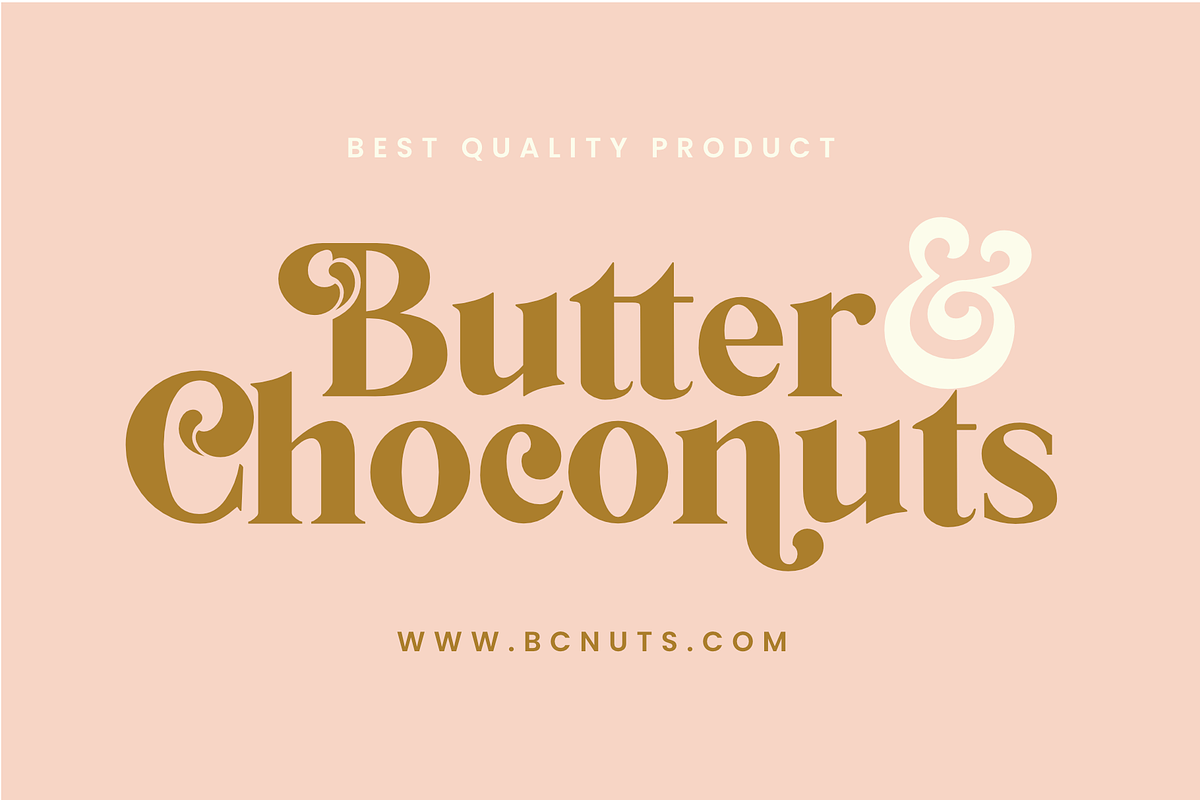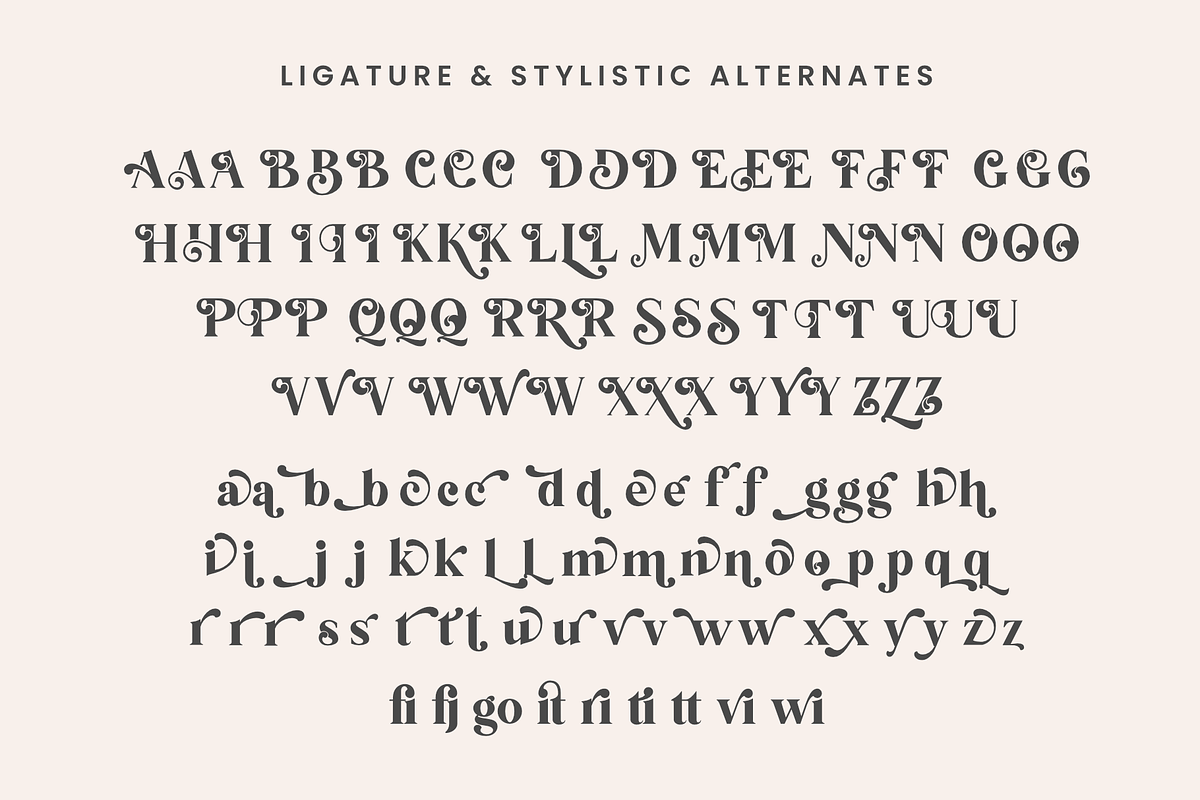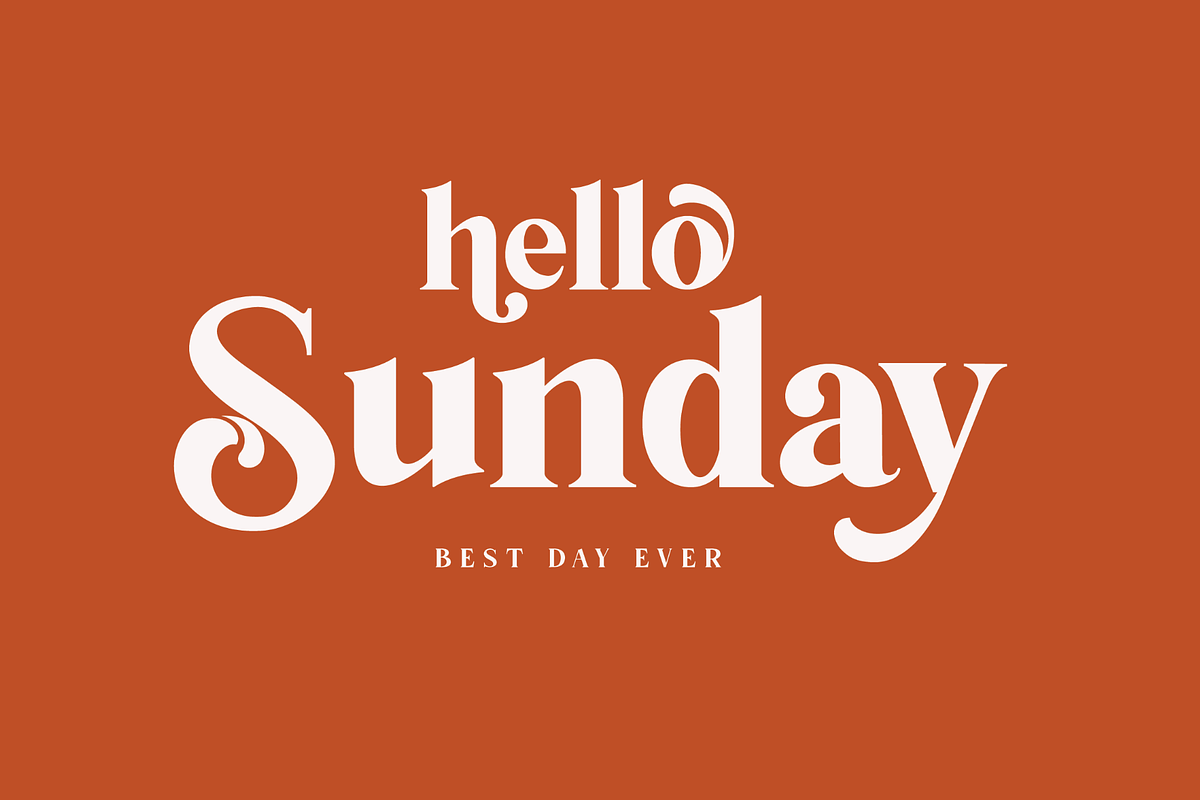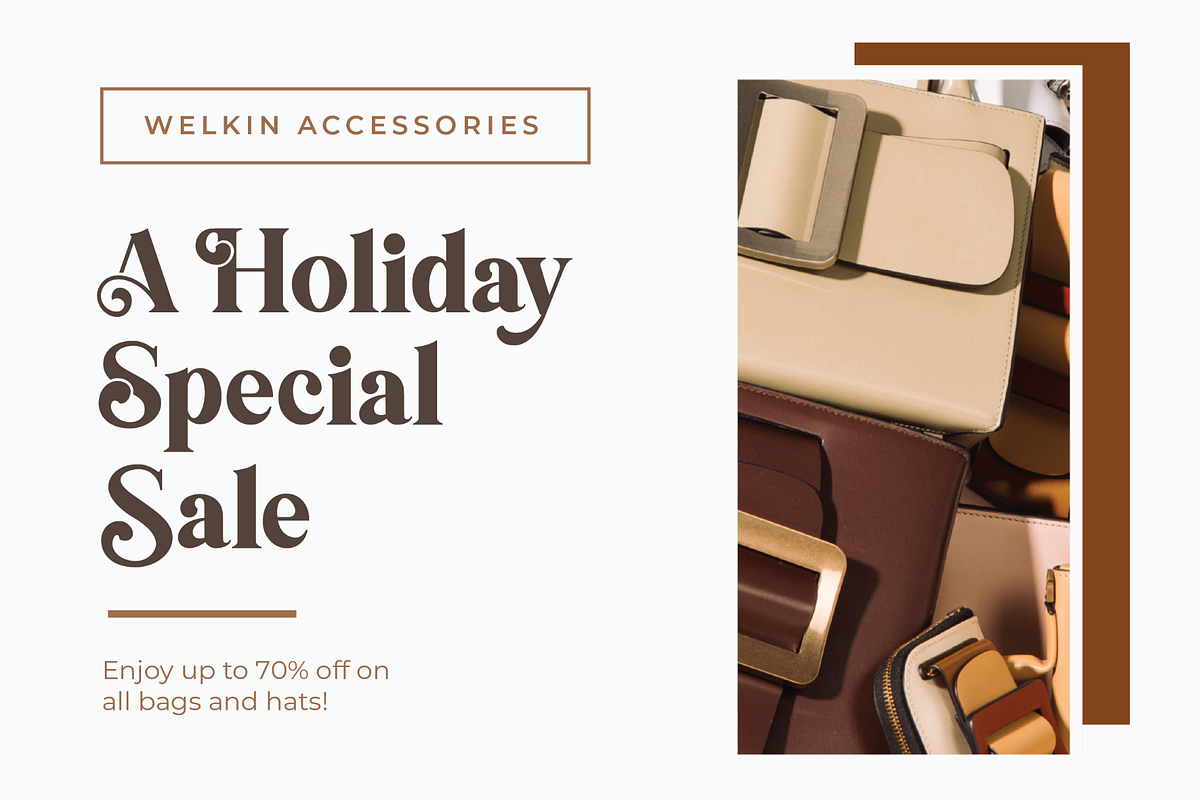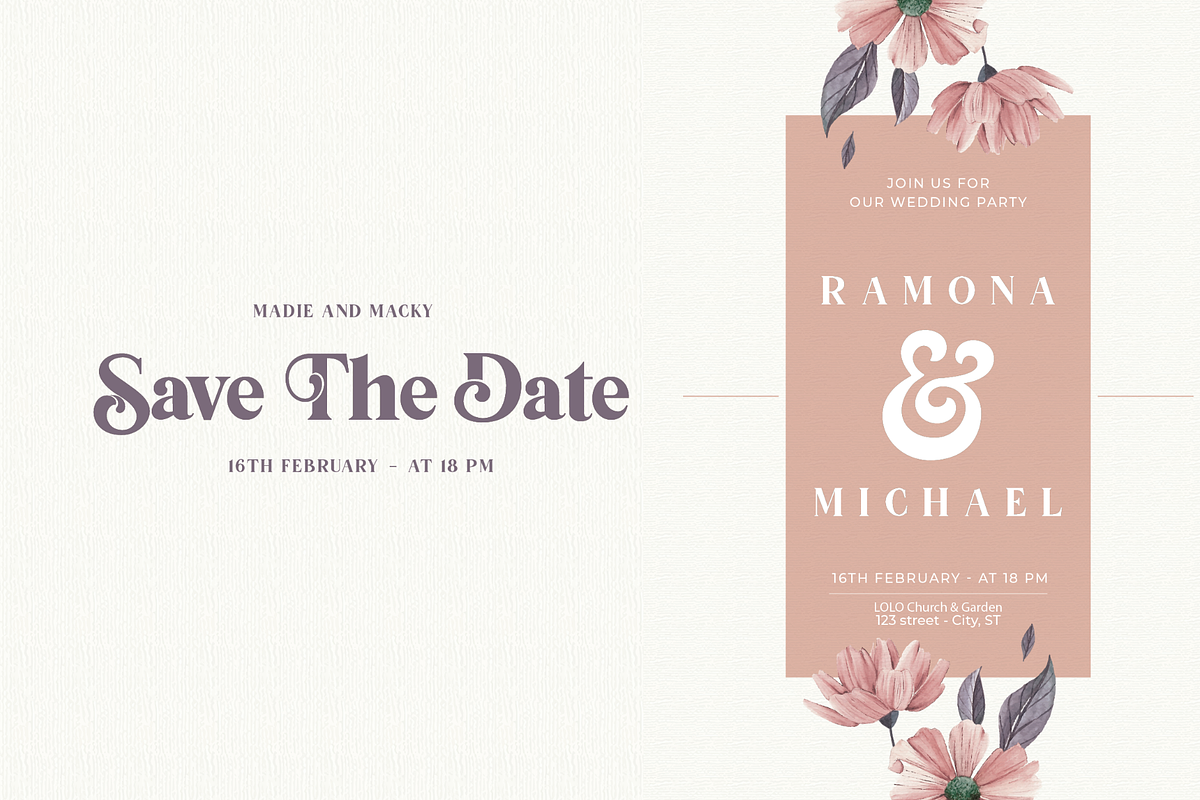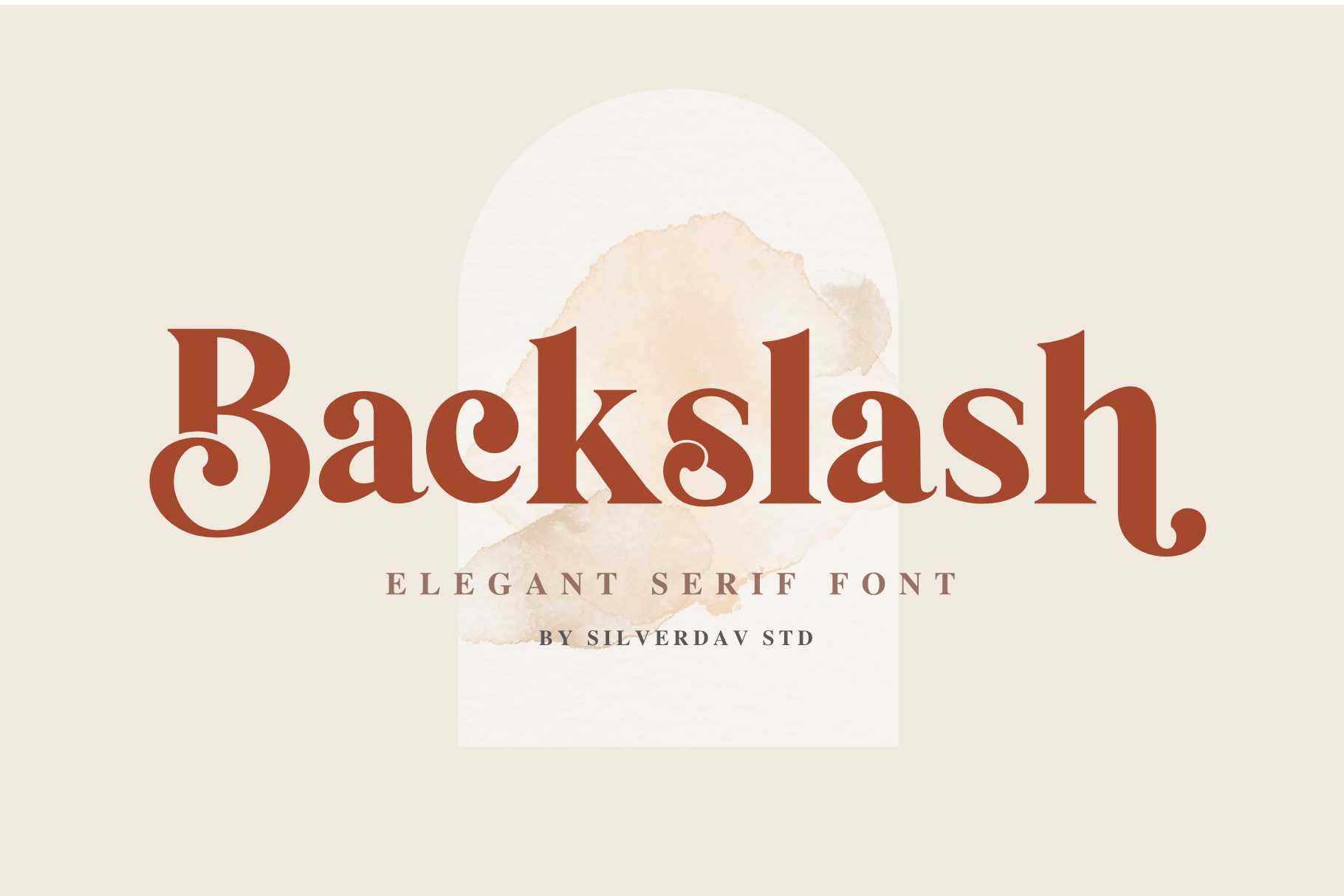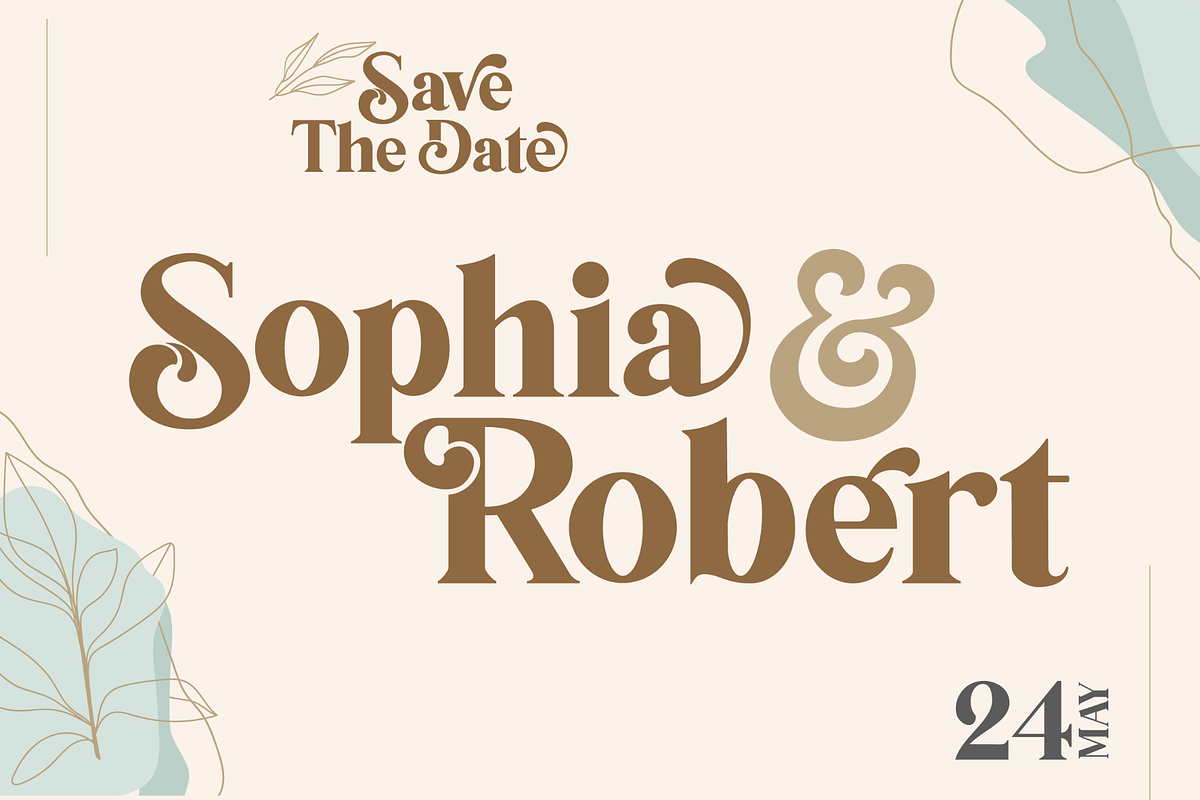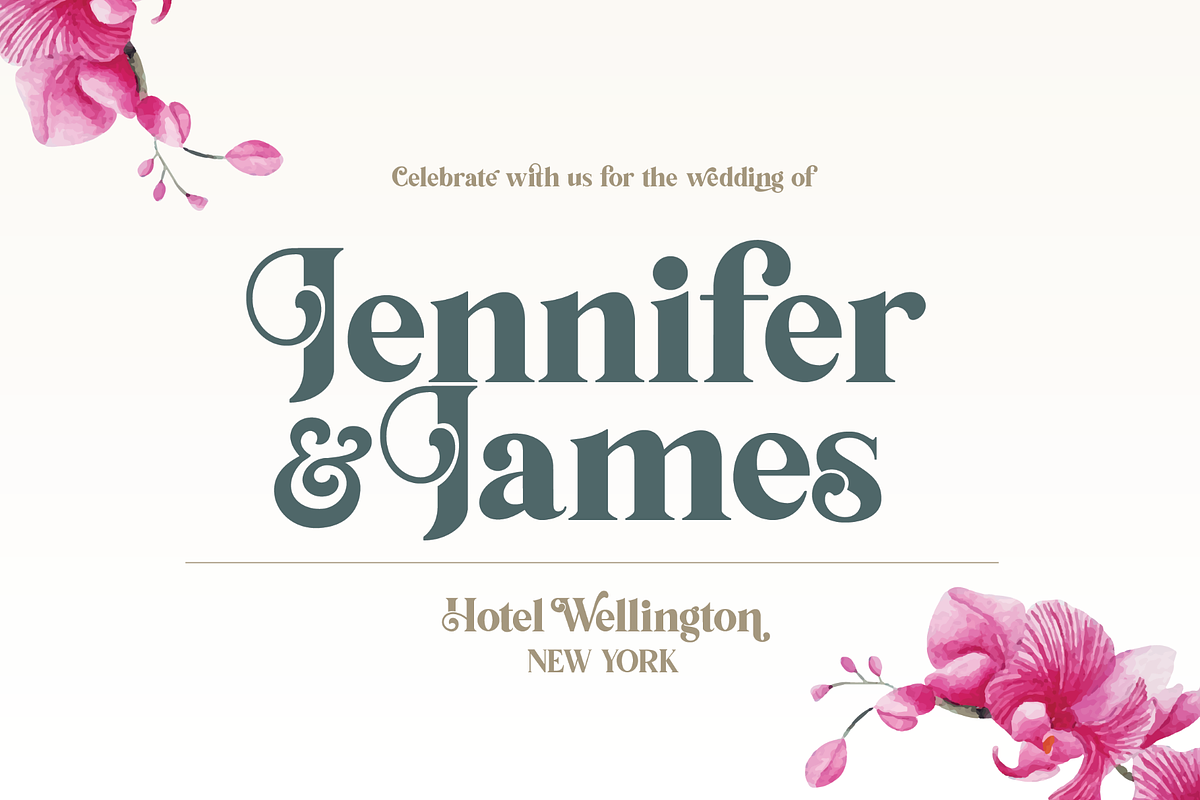
Backslash - Elegant Serif font
Backslash is a new display serif typeface with nicely balanced curves, tons of alternative characters, ornaments, multilingual support, and unique ligatures.
Backslash can impress us with Classical Style by accessing tons of alternative letters in Opentype Features.
You can display the Elegant Typography Style simply by adjusting the spacing between the letters.
Its wide range of stylistic alternates allows versatile design options and works perfectly for headlines, logos, posters, packaging, T-shirts, postcards, bold magazine imagery, wedding invitations, branding, poster design and so much more.